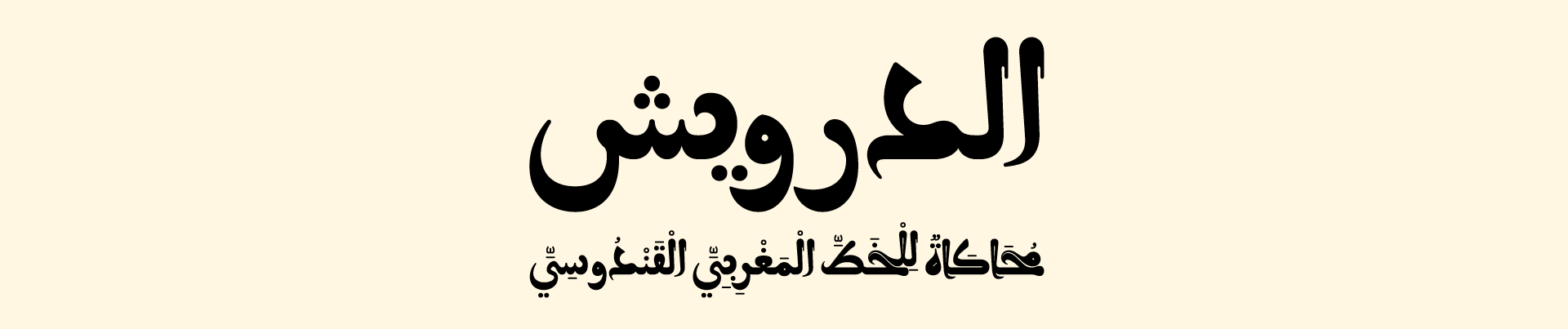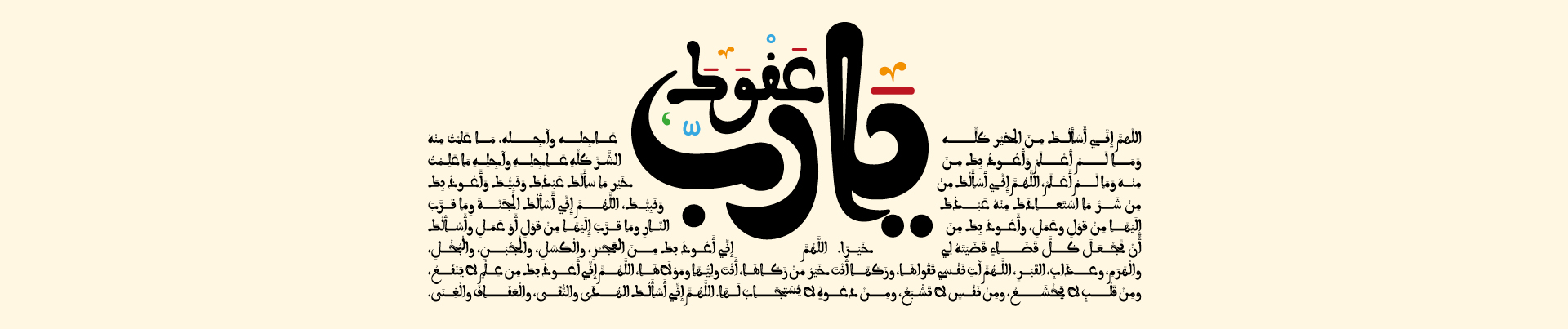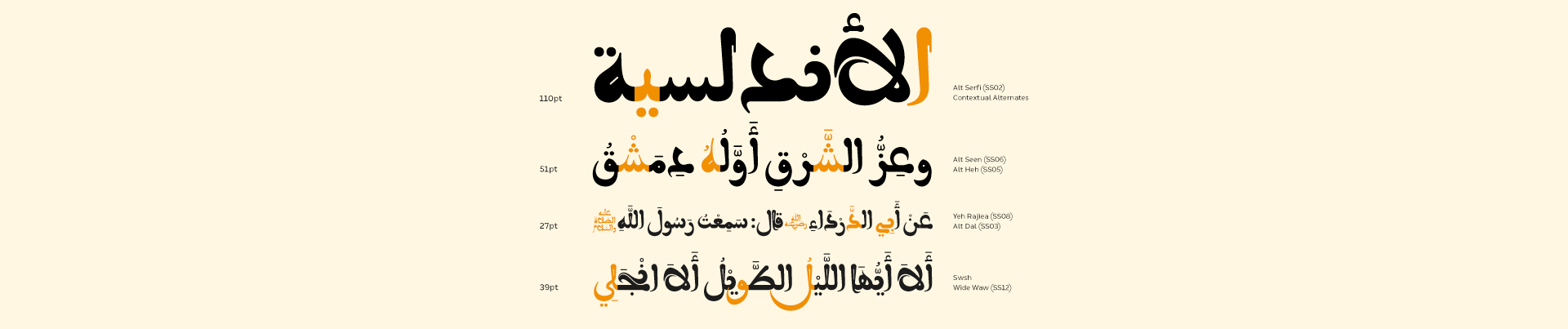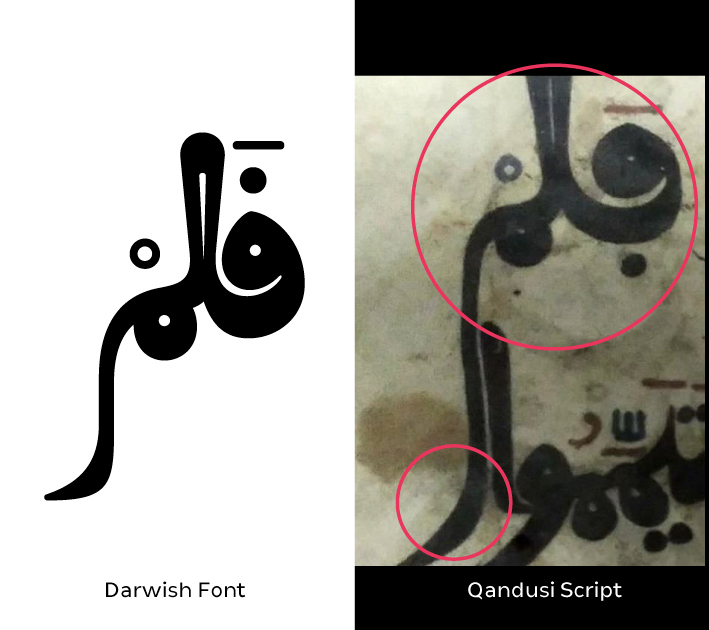
About Aldarwish Font
Introduction:
The Darwish Typeface is a revival of the best form of the glorious eighteenth-century Qandusi Script. We chose the most distinguished letters from the ancient manuscripts and modified them to be consistent with Typography.
The Typeface’s name is derived from a common term for righteous Sufi ascetics, as the scholar Al-Qandusi was known to be.
Muhammad ibn Al-Qasim Al-Qandusi Al-Jaza’iri was a Sufi scholar and a famous calligrapher in Morocco. He created a style based on the simple Maghrebi Andalusian script and used it to write a 12-volume Qur’an, which is kept in Morocco’s royal treasury and is named after Al-Qandusi.
The Qandusi script is characterized by its contrast of letter thicknesses and the remarkable customizations that reflect a rare beauty that combines old and
Past and present are brought together in the Darwish Typeface; in terms of beautiful appearance and distinctive functionality, traditional and modern values are encapsulated all at once.